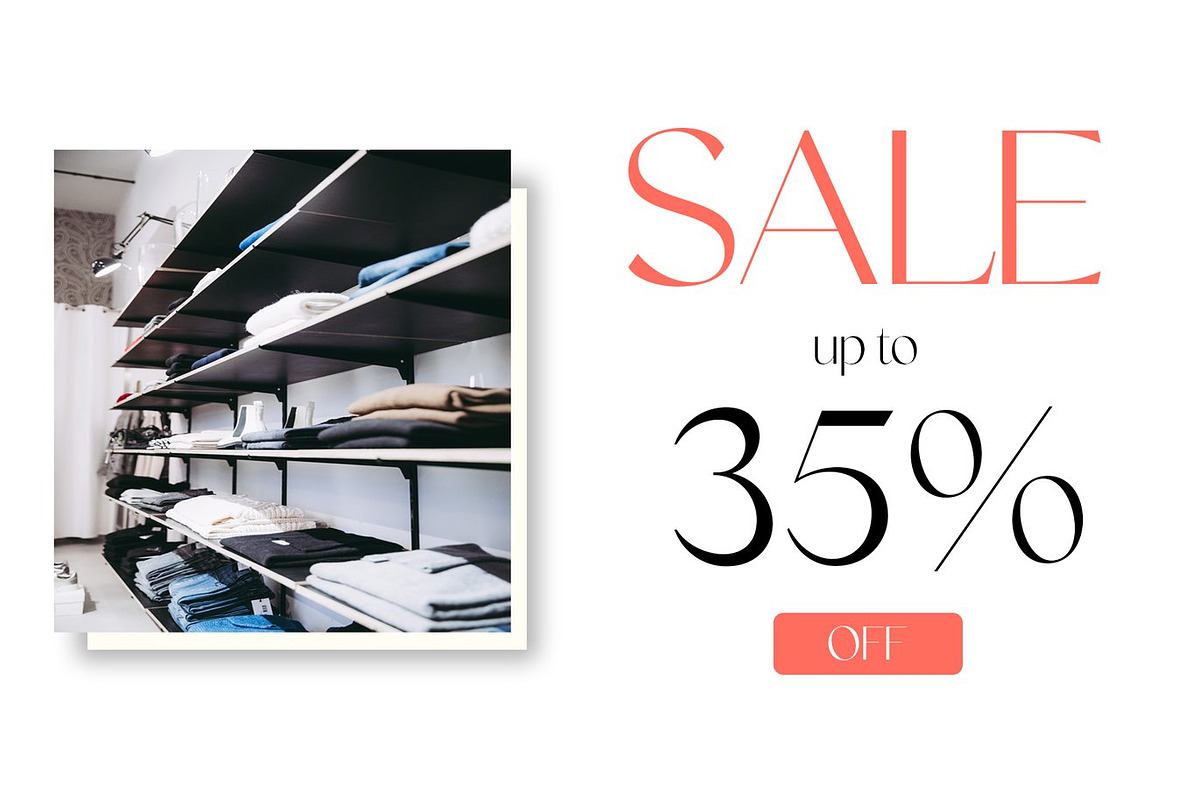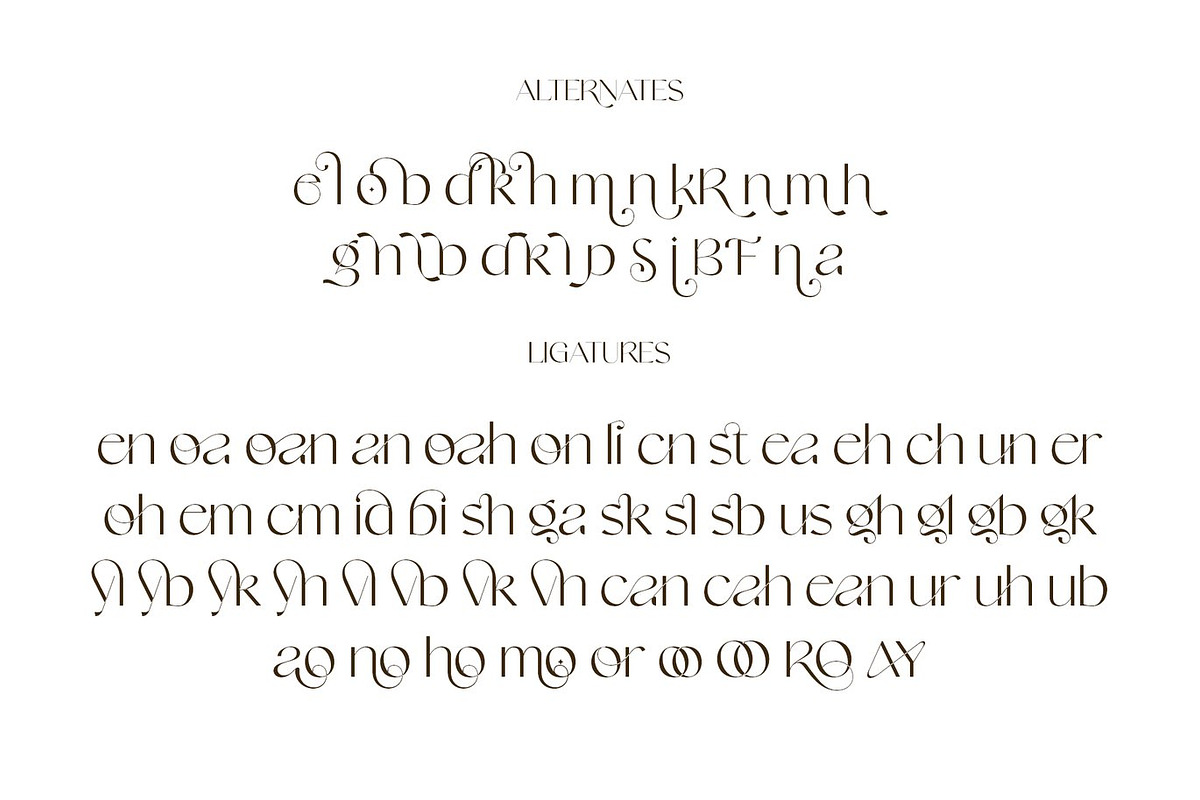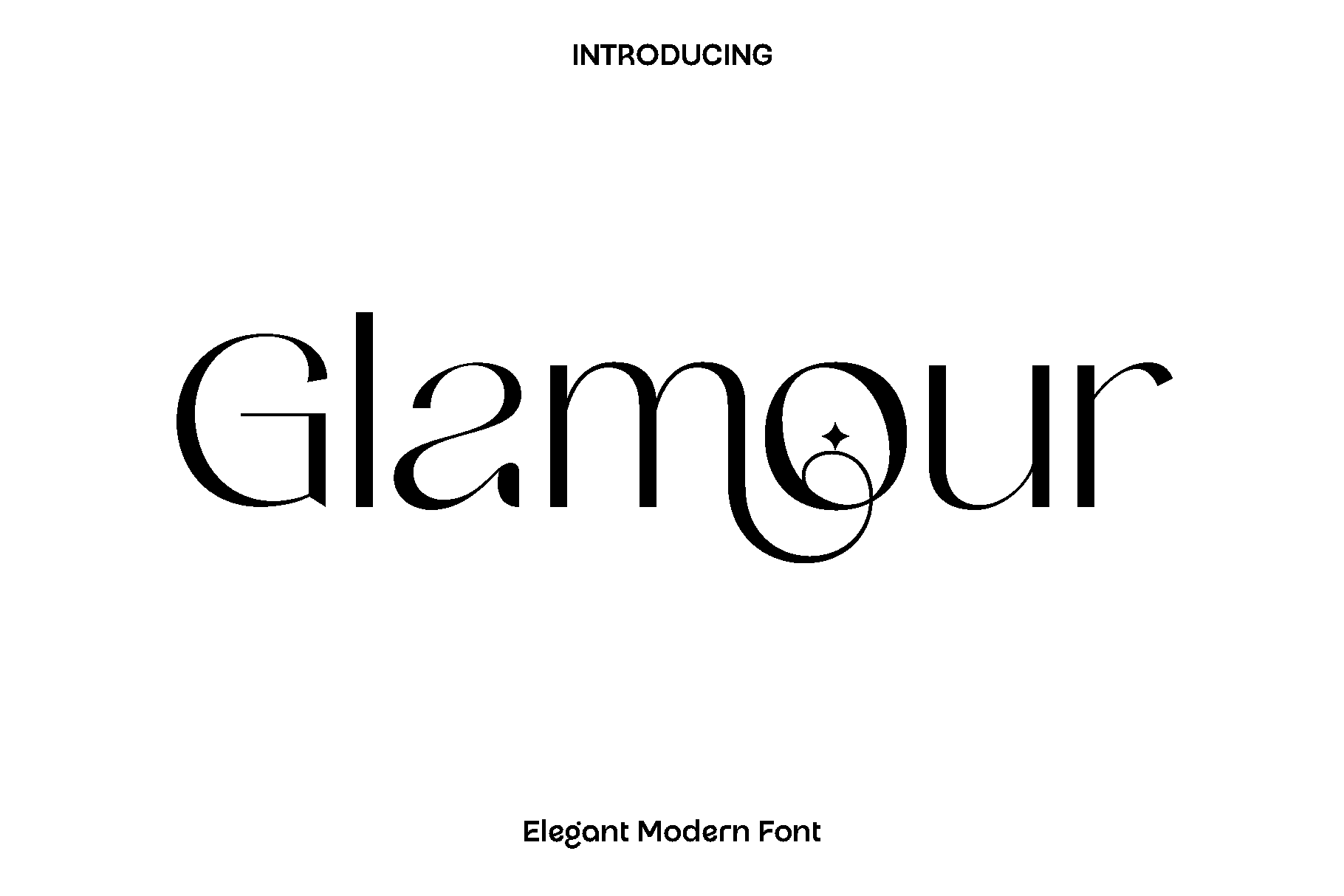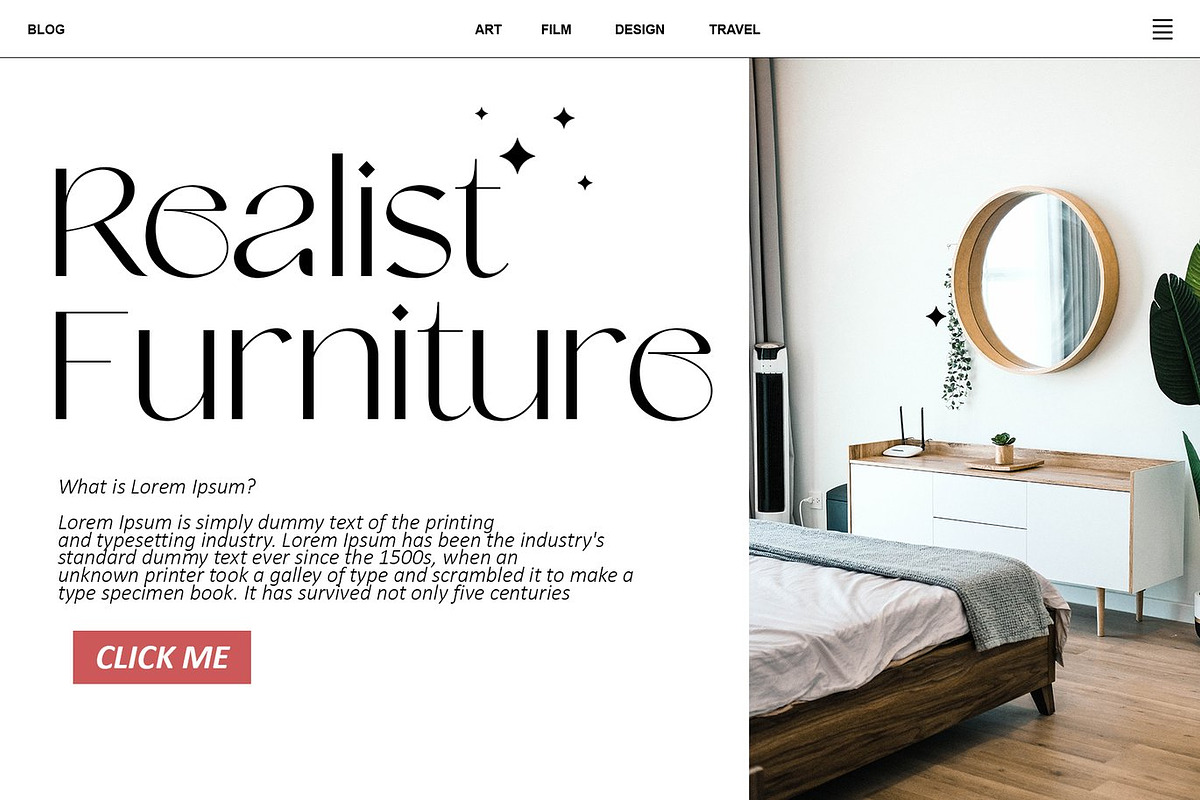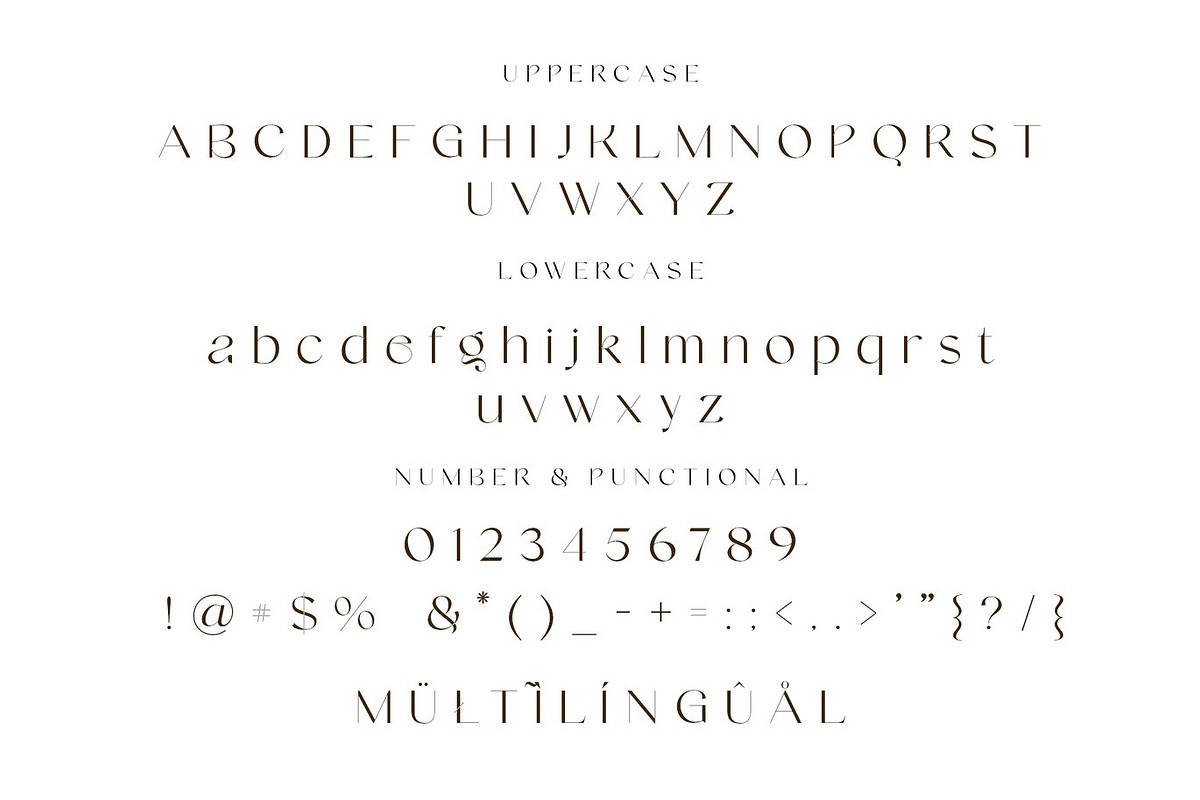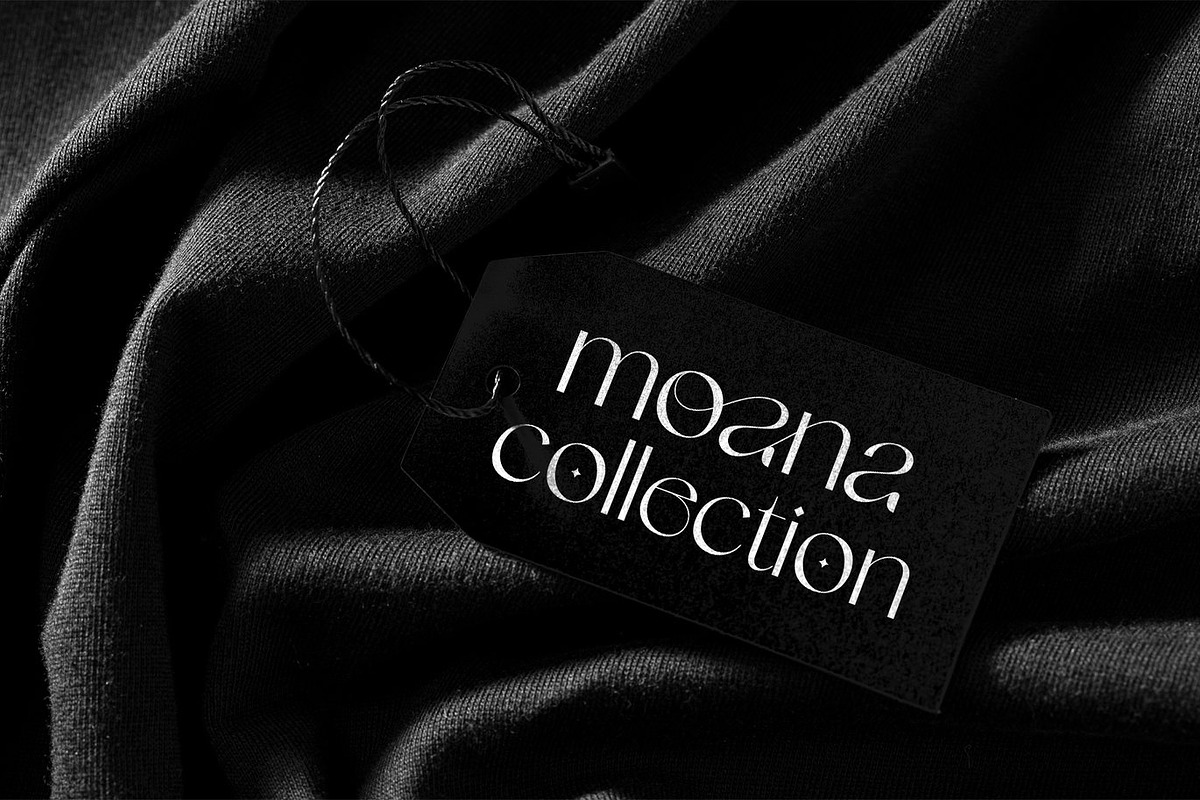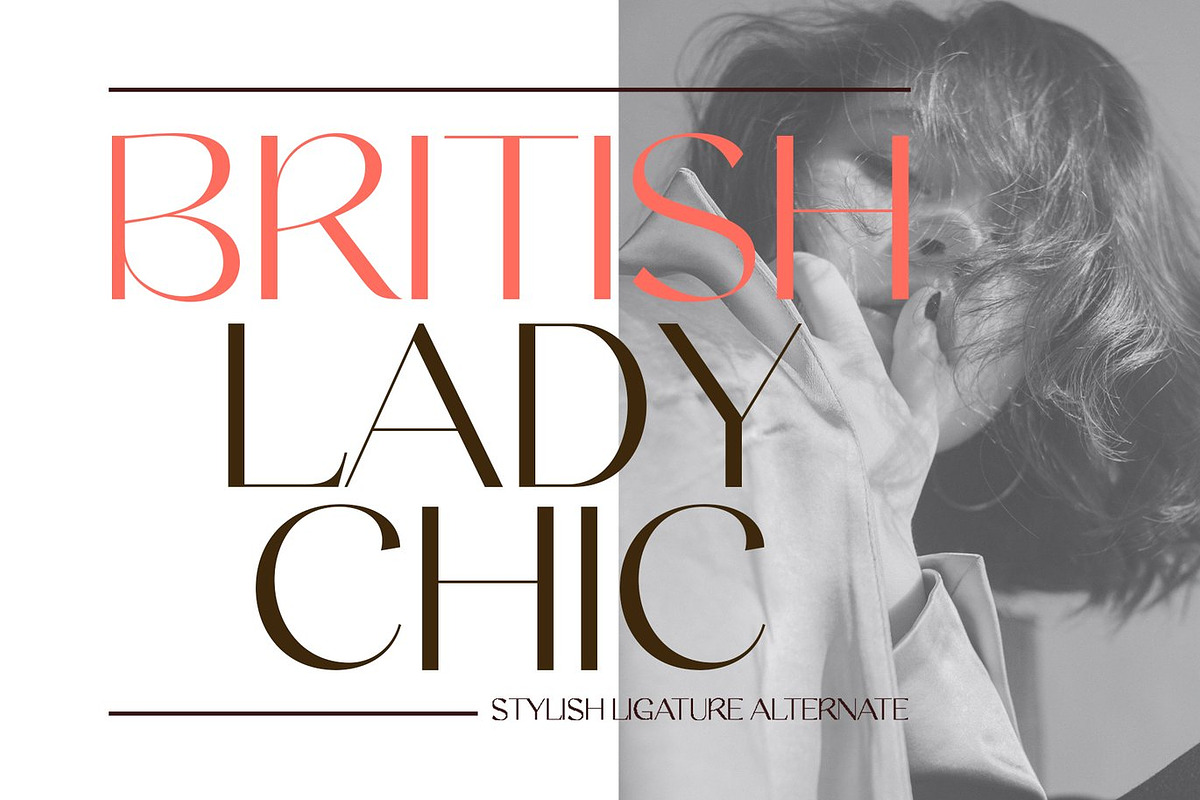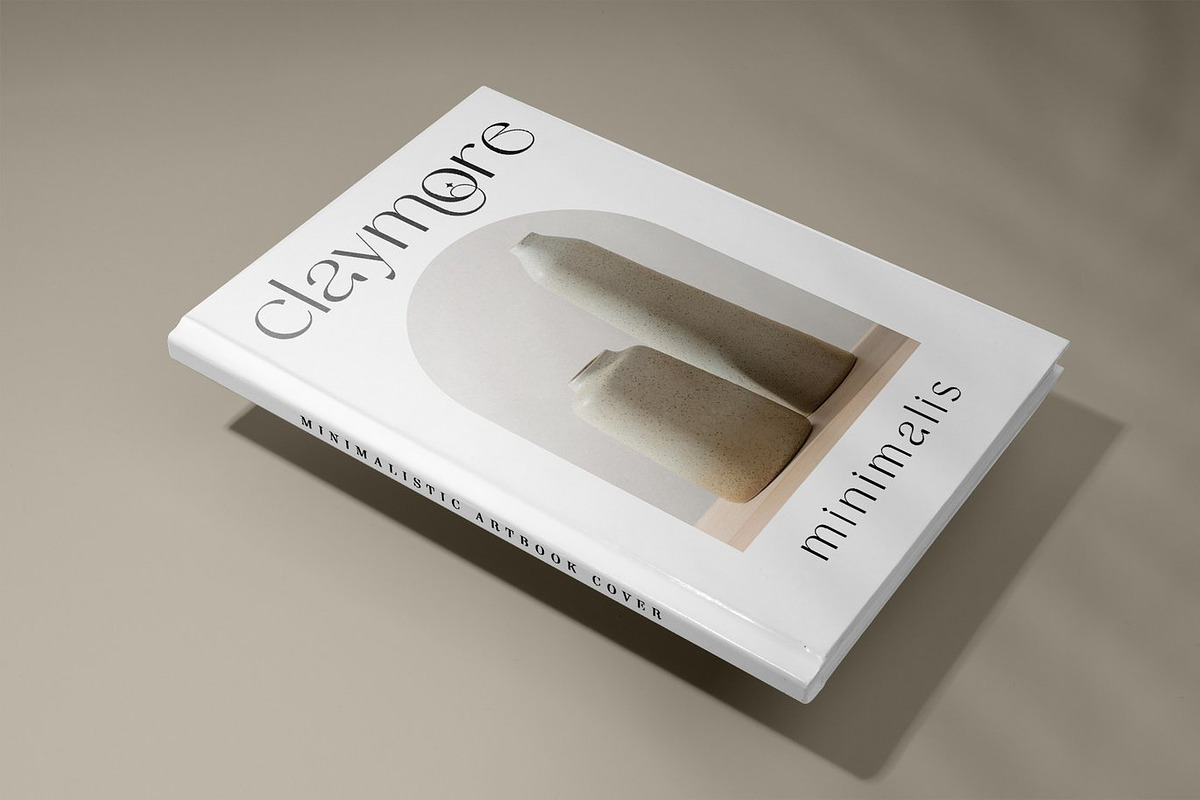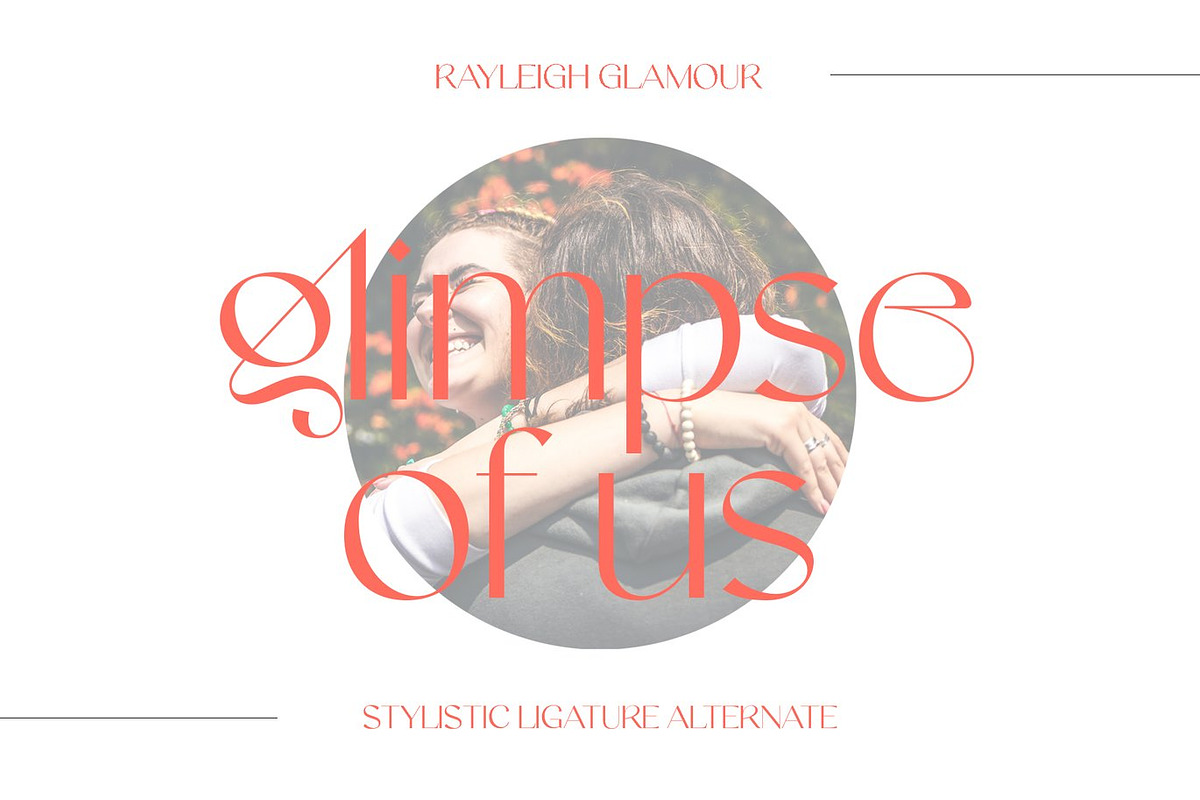
Glamour - Elegant Display Font
Glamour is a stylish display font created to bring beauty, confidence, and refined charm into your designs. Inspired by the world of fashion, editorial layouts, and modern branding, Glamour features graceful letterforms that feel both luxurious and approachable. Every curve is crafted to deliver a smooth visual flow, giving your typography a polished and professional appearance.
This font shines in creative projects that need a strong visual impact with an elegant touch. Glamour is perfect for books, magazines, branding, logos, photography overlays, quotes, blog headers, posters, and advertisements. Whether used for bold headlines or stylish short phrases, it adds personality and sophistication that instantly elevates your design.
Glamour feels modern, classy, and expressive. It was designed for creators who want their work to look premium without losing warmth and readability. Its versatility makes it suitable for both print and digital use, helping your projects stand out with timeless appeal and visual confidence.
Glamour Font Features:
• Elegant and stylish display characters
• Clean punctuation, numbers, and symbols
• Uppercase and lowercase
• OpenType features
• Easy to use for both print and digital designs
Bring elegance and creative flair to your projects with Glamour and let every word make a lasting impression.